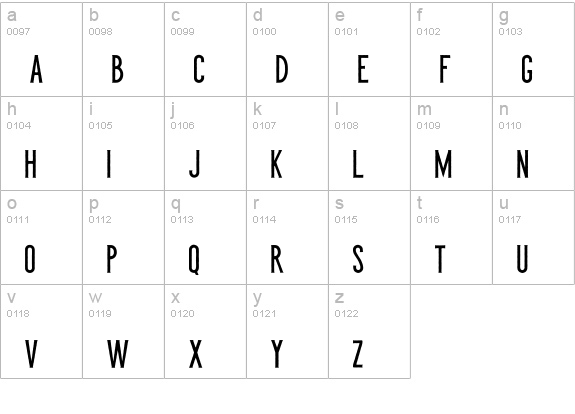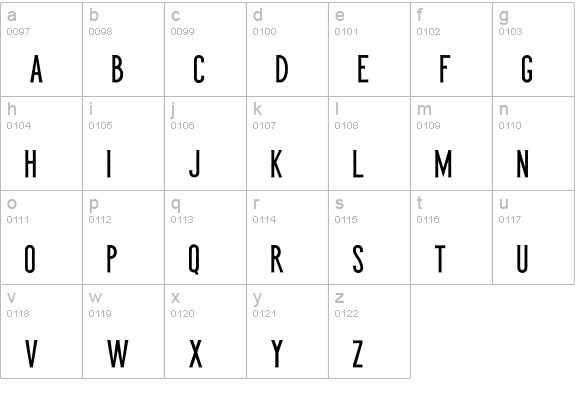
BarberinoRR Regular is the standard, neutral variant in the BarberinoRR typeface family \xE2\x80\x94 well suited to general body text, paragraphs, and standard typographic work.
BarberinoRR Regular font is a sleek and modern typeface that exudes elegance and sophistication. With its clean lines and balanced proportions, this font is perfect for a wide range of design projects, from branding to editorial design. The BarberinoRR Regular font is versatile and can be used in both digital and print applications, making it a must-have addition to any designer's toolkit. What's even better is that BarberinoRR Regular font is available for free download at FontsMarket.com. This means that you can access this high-quality font without any cost, allowing you to elevate your designs without breaking the bank. Don't miss out on this opportunity to enhance your projects with the BarberinoRR Regular font – download it for free today at FontsMarket.com!